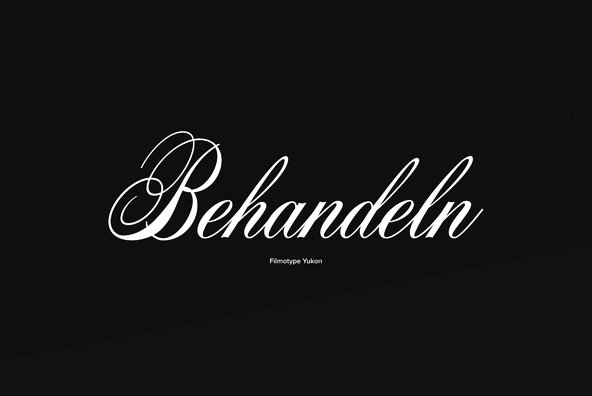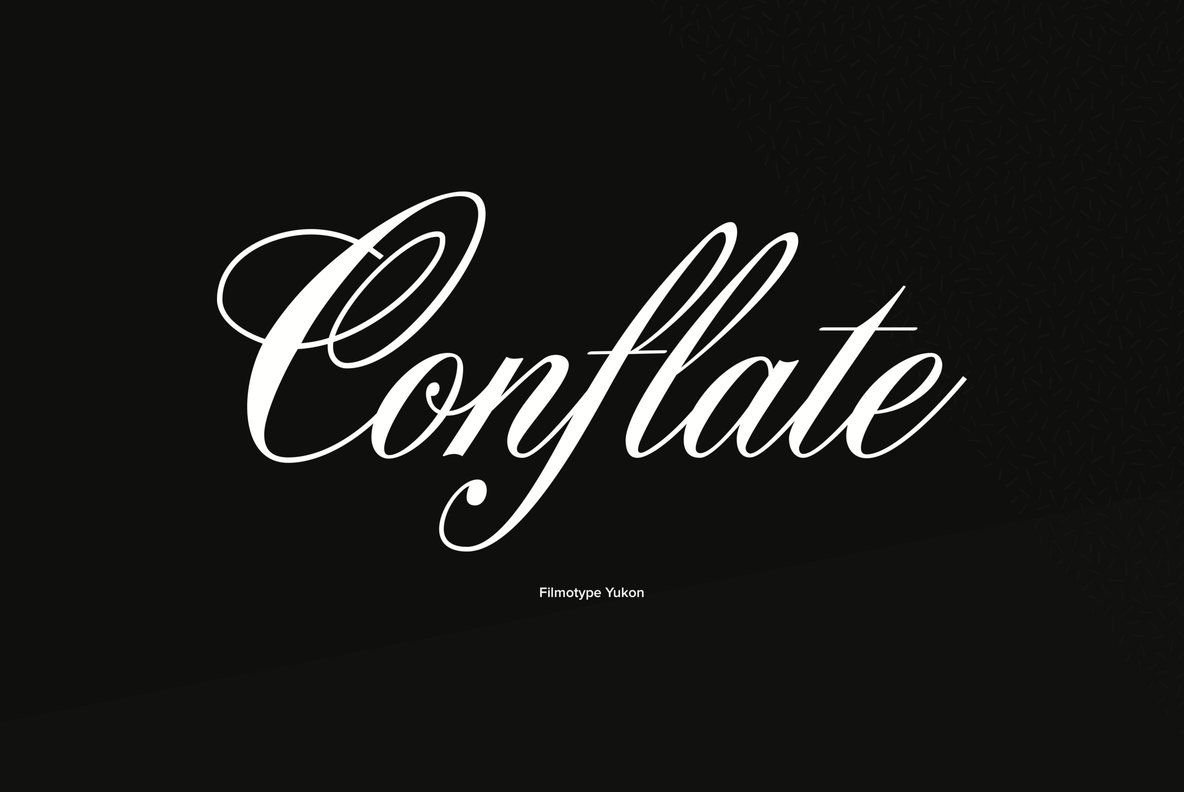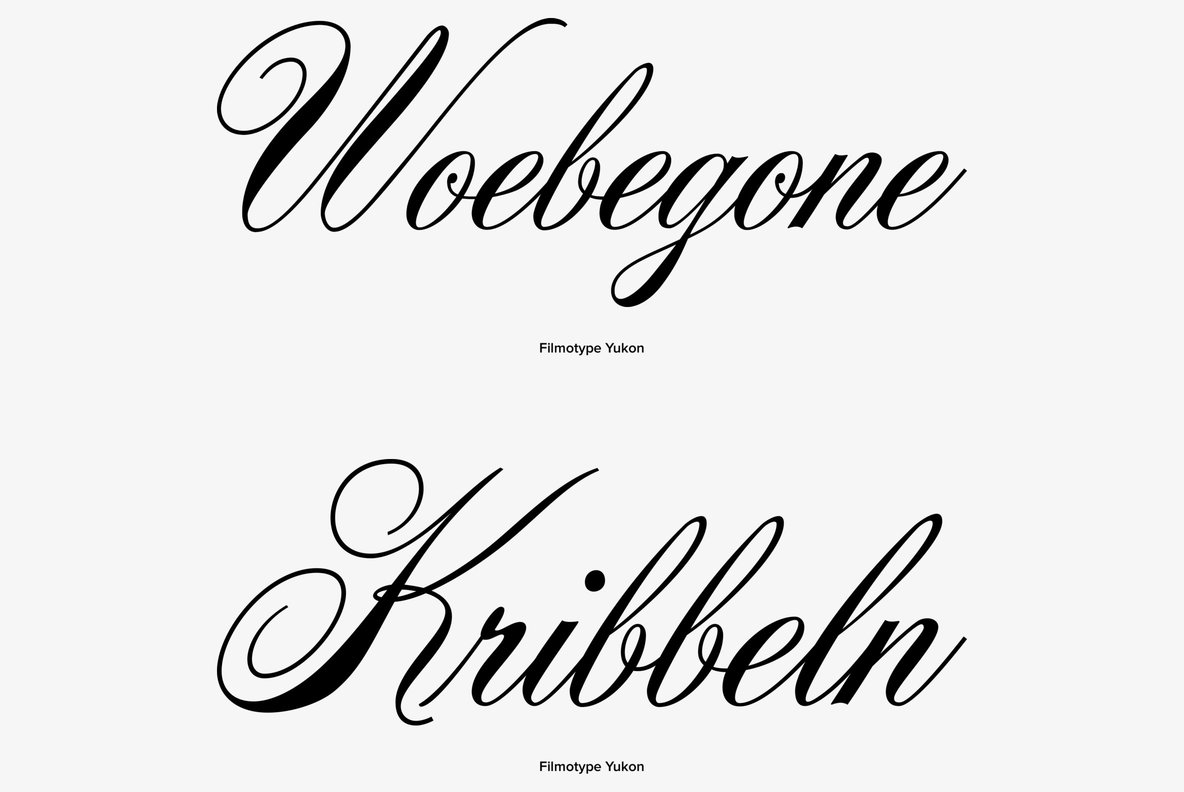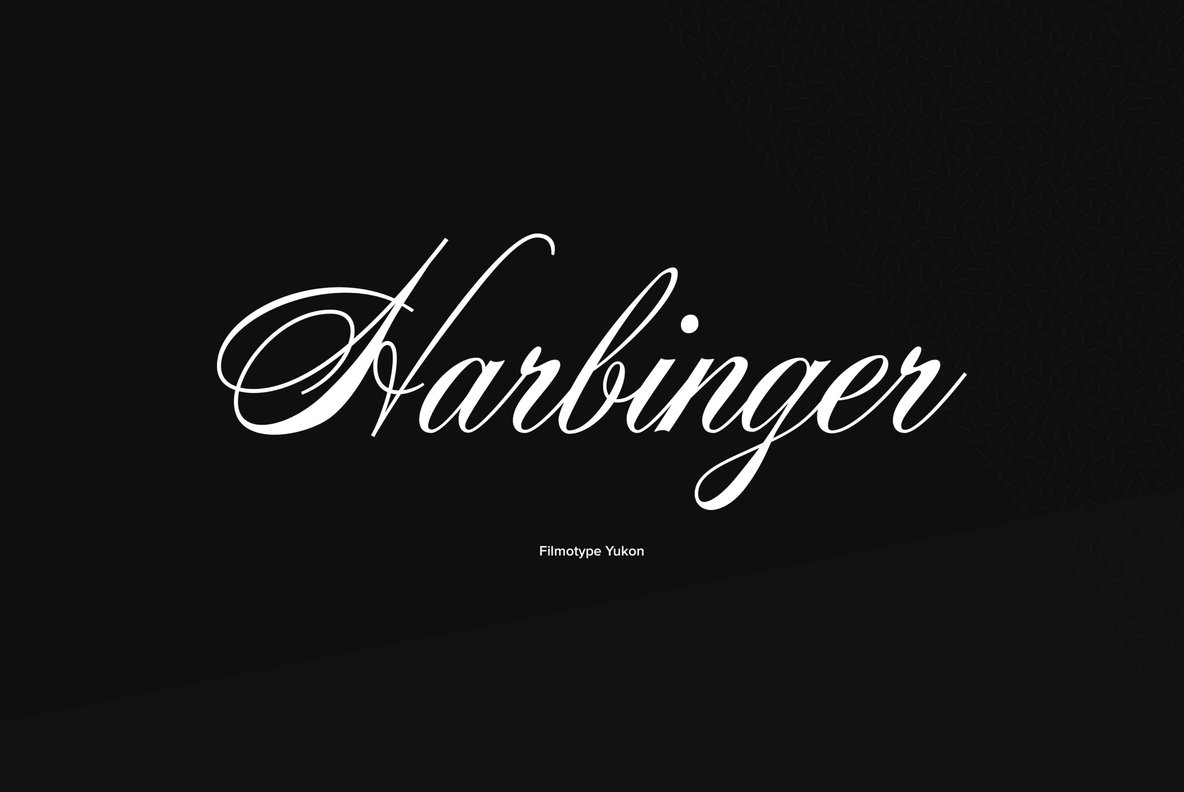
Filmotype Yukon is inspired by the classic Palmer style of penmanship made popular in the late 19th and early 20th centuries.
Originally released in the late 1950s, Filmotype Yukon has been meticulously redrawn from the original font filmstrips and has been enhanced to include a full international character compliment, automatic fractionals, ordinals, and a host of alternate characters in dynamic OpenType format.